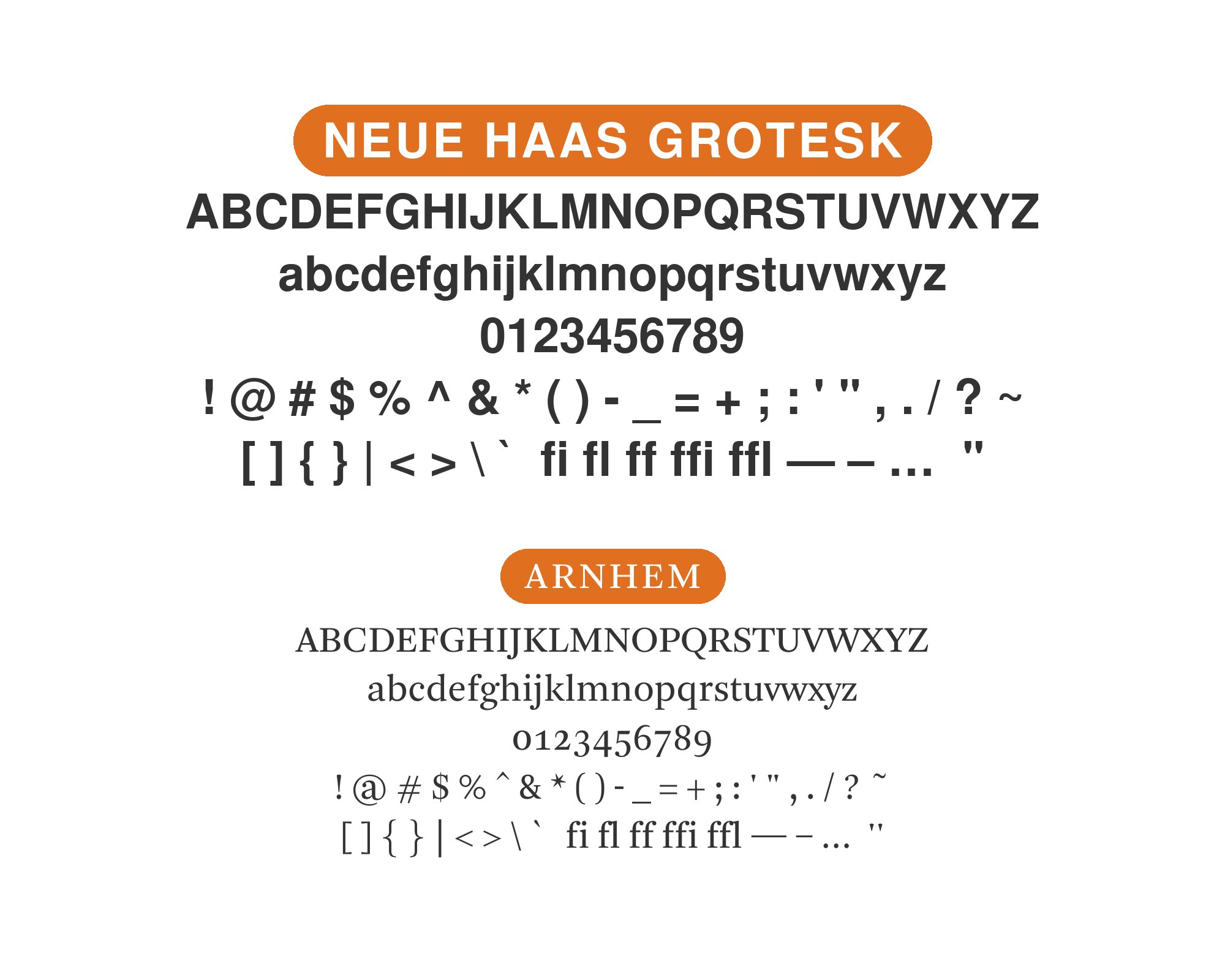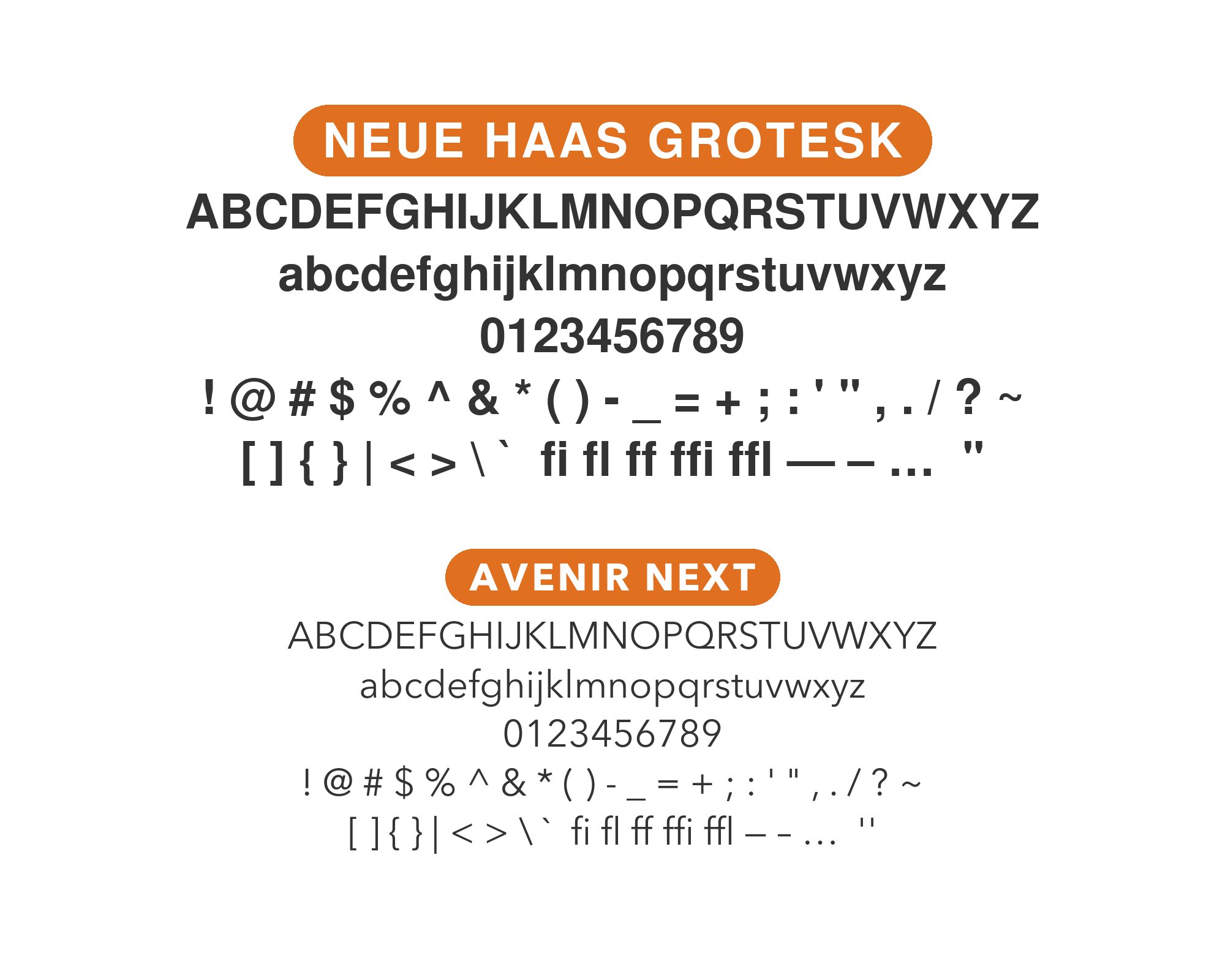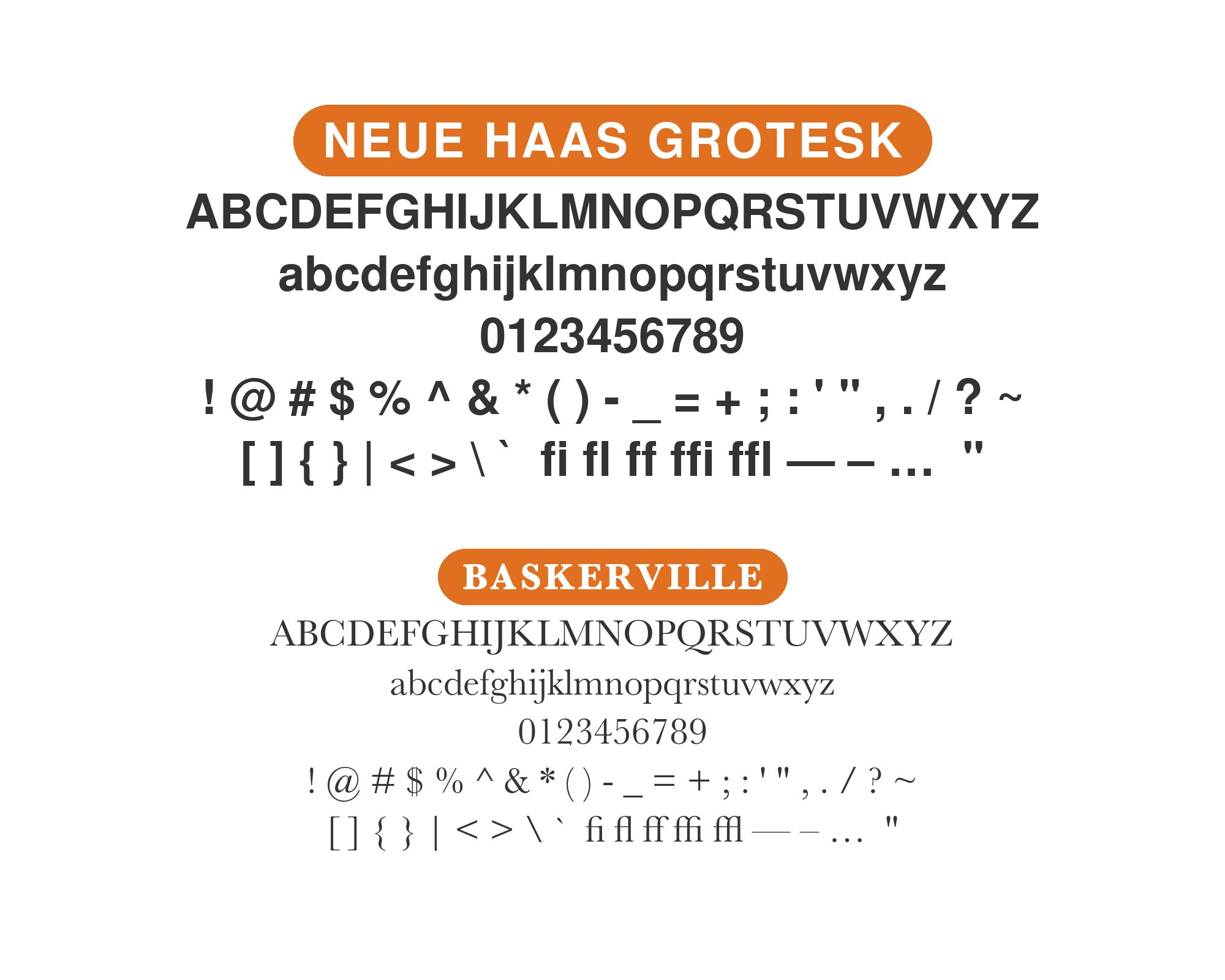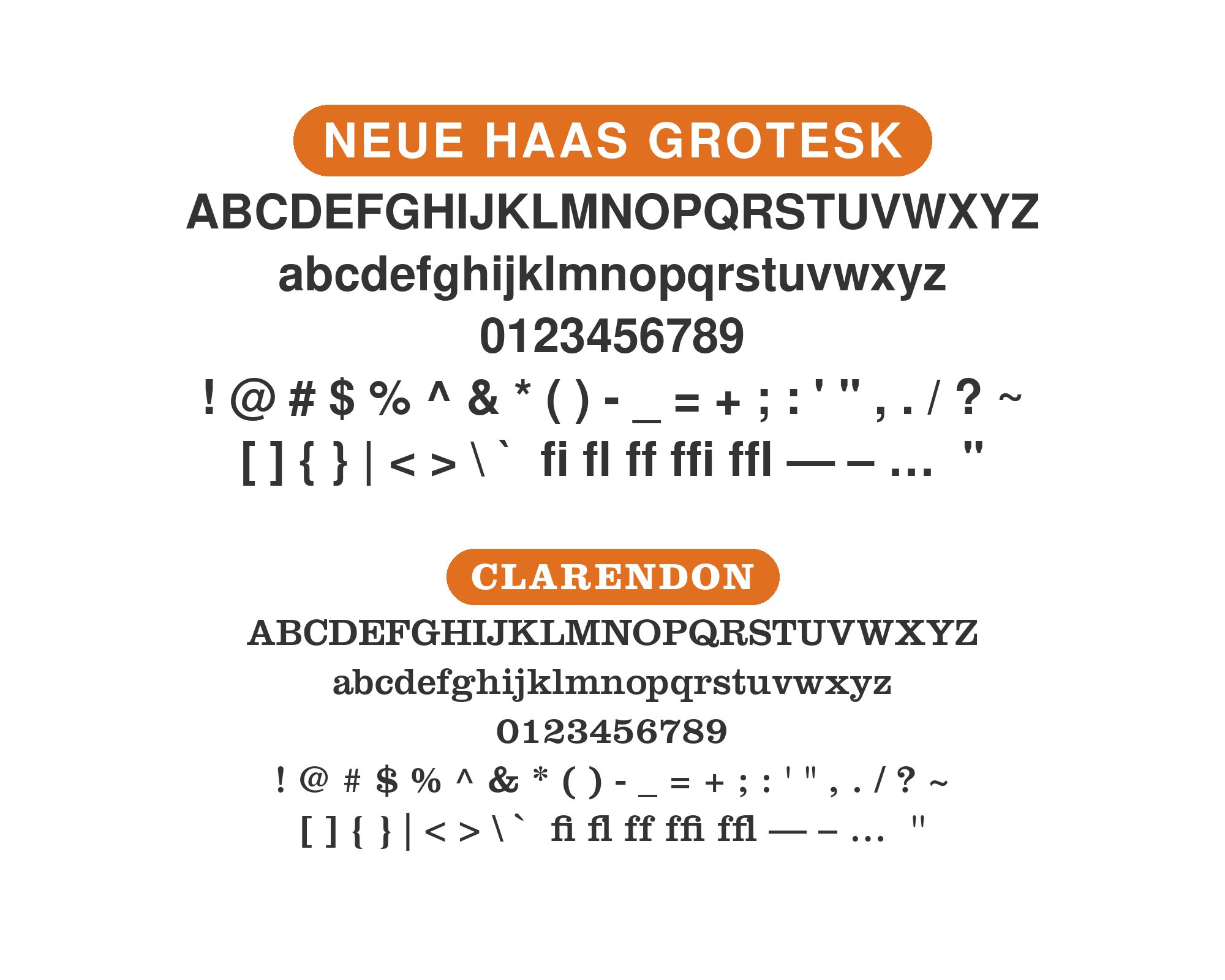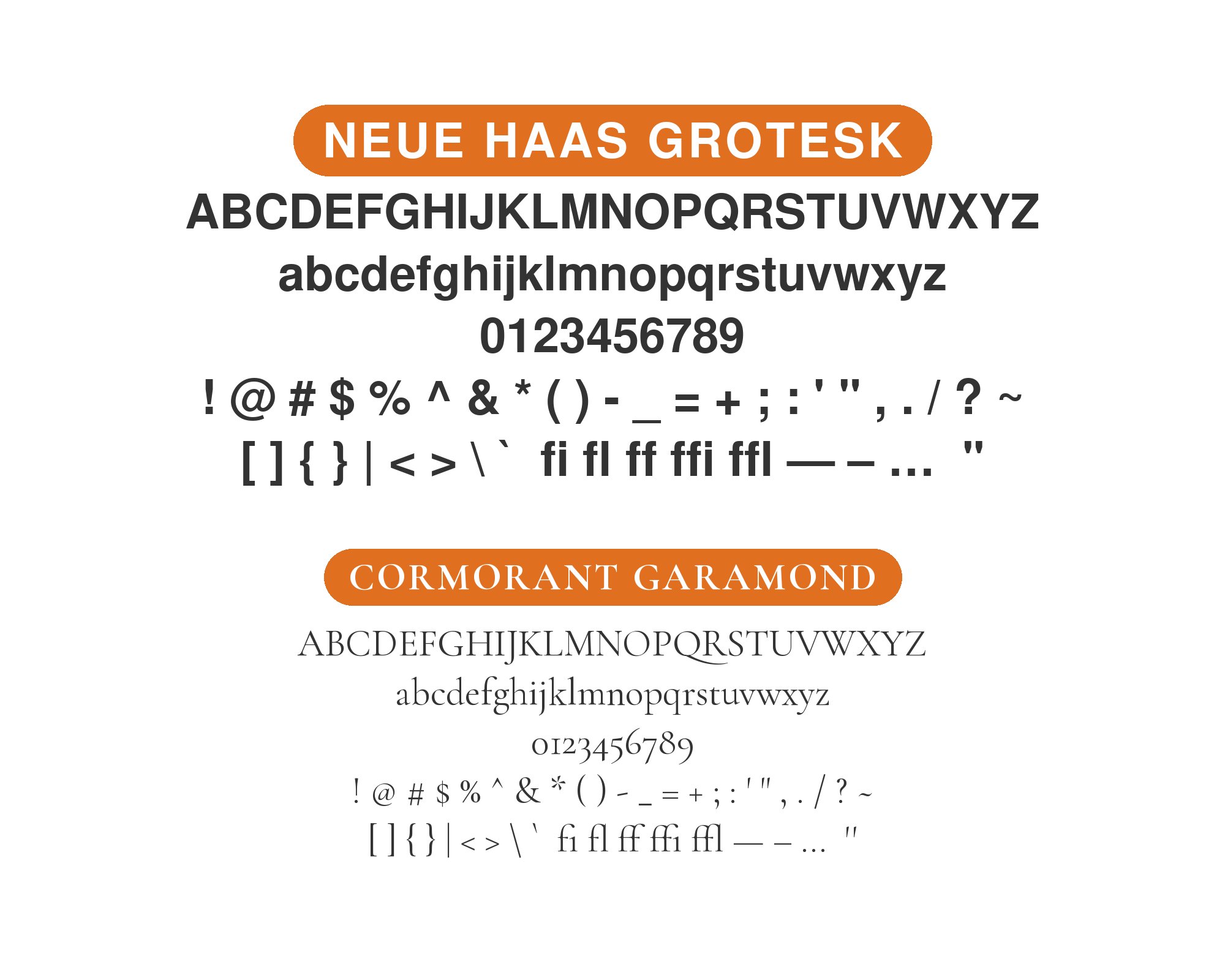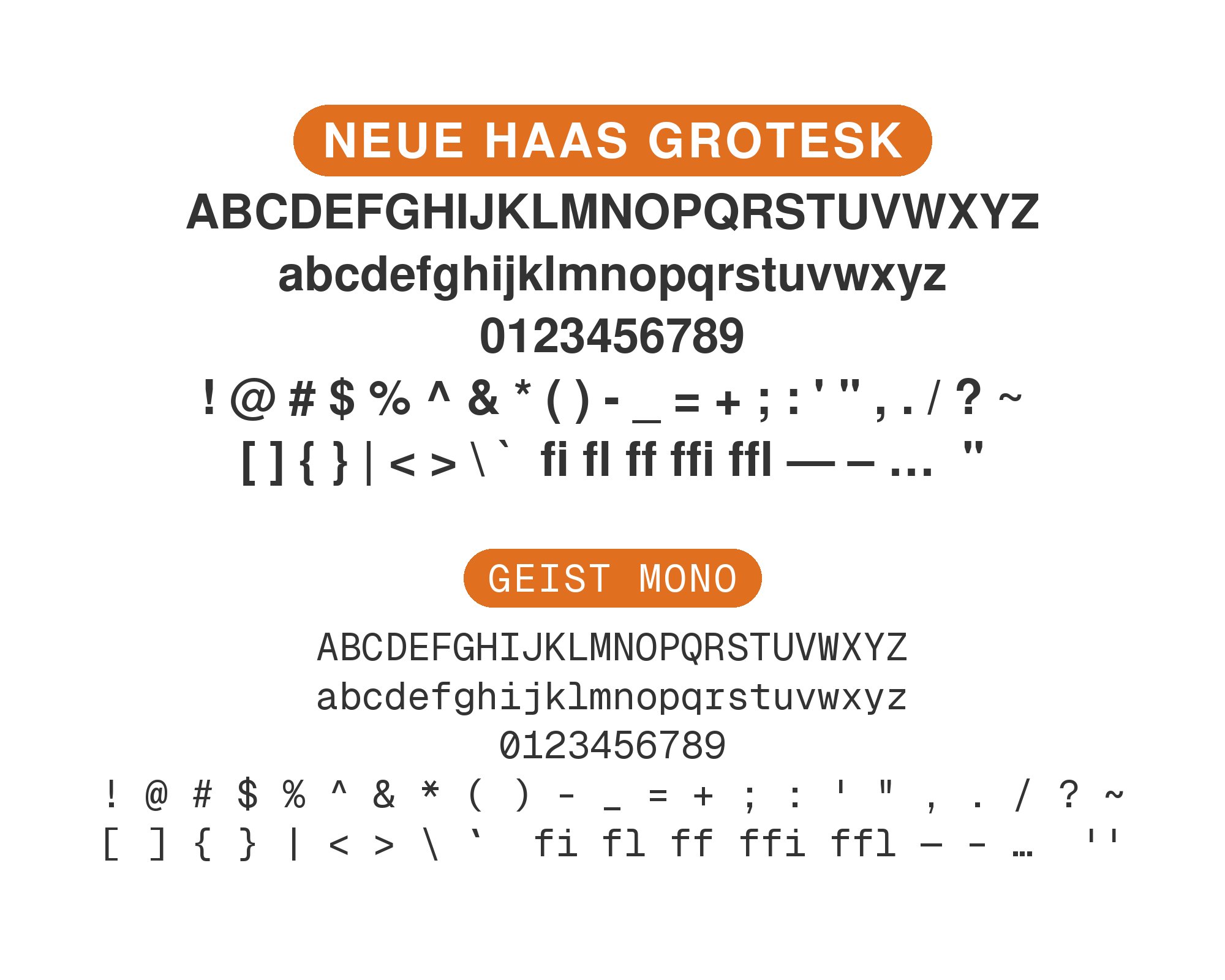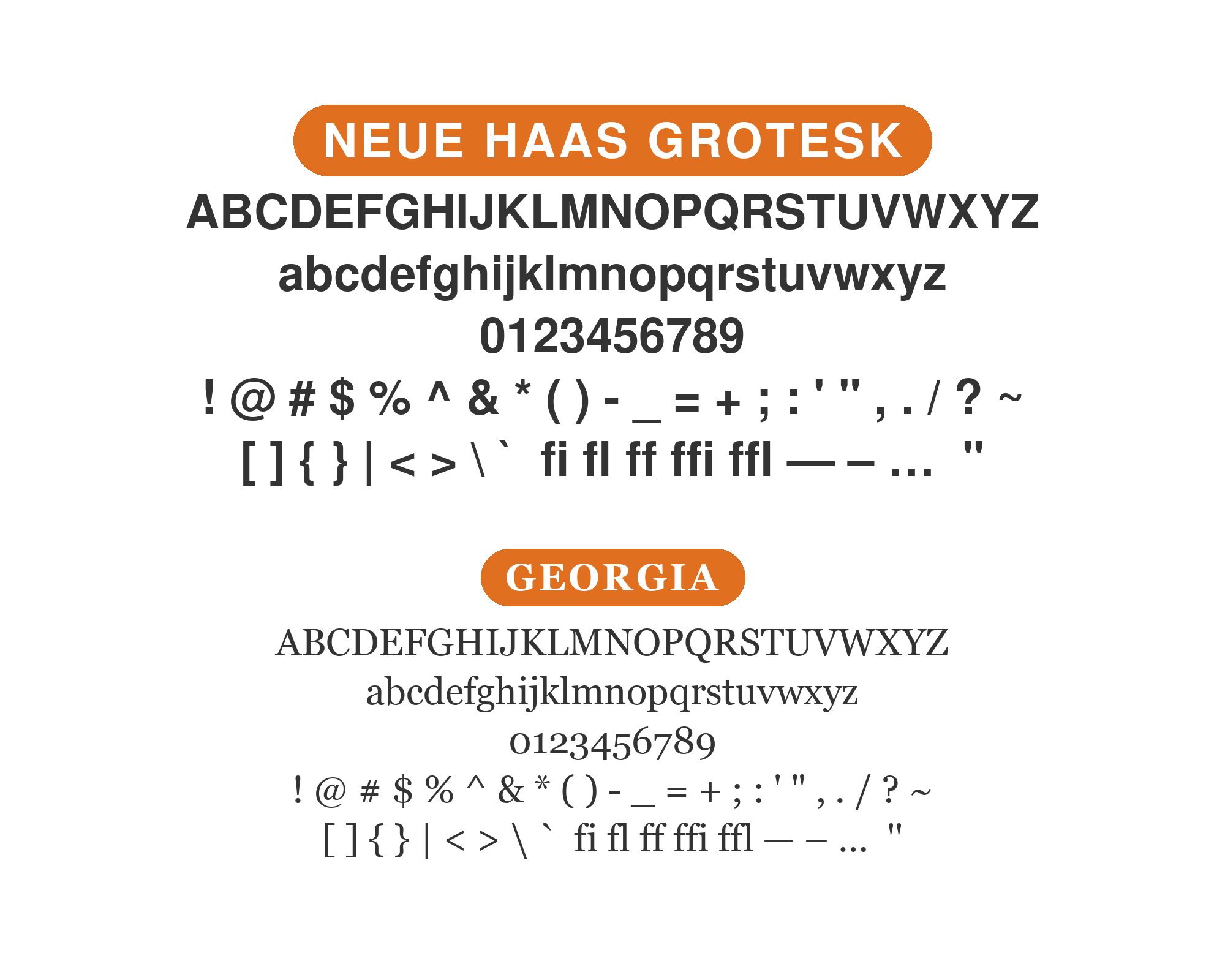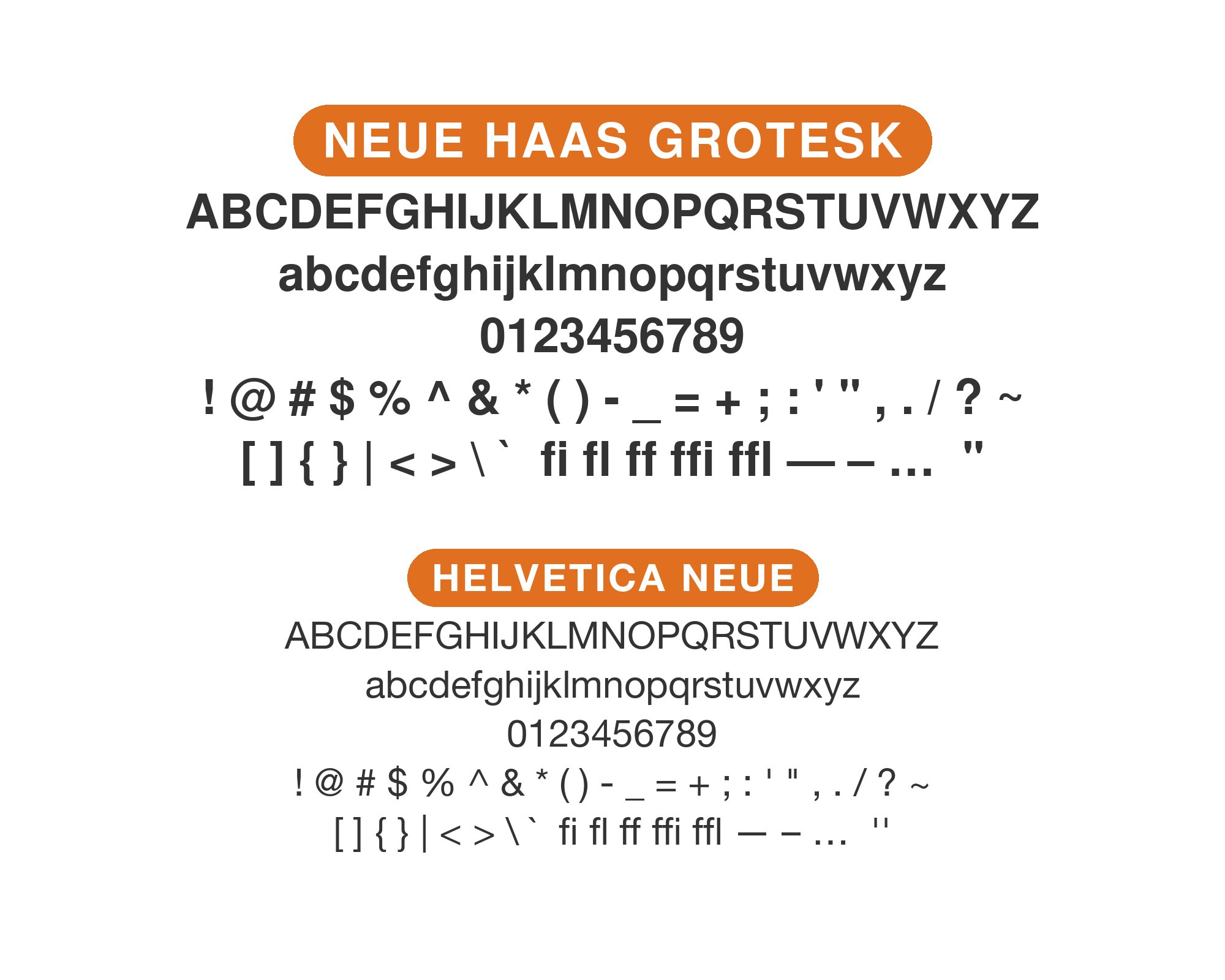
Neue Haas Grotesk pairs great with Arnhem, Kabel and ITC Garamond. All 15 pairings are shown below in real rendered specimens, with the reason each one works.
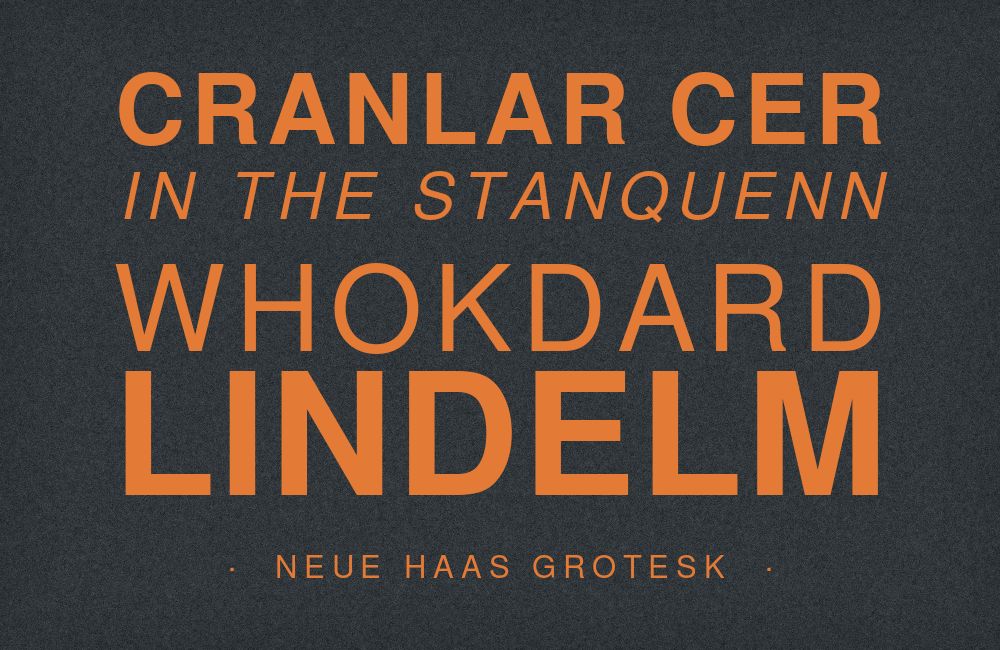
What fonts go with Neue Haas Grotesk? Before the pairing question comes the identity question, because this face is not another Helvetica — it is Helvetica restored, and its partners have to work against near-zero stroke contrast, closed apertures and spacing tight enough to lock words into single shapes.
Max Miedinger and Eduard Hoffmann drew the original Neue Haas Grotesk for the Haas Type Foundry in 1957; Christian Schwartz’s 2004–2010 revival — commissioned by Mark Porter at The Guardian and completed for Richard Turley at Bloomberg Businessweek — returned the design to its pre-Linotype form, recovering Miedinger’s original shapes and tight spacing, and issued it in Text and Display cuts. That recovery is the whole design argument: the stroke weight holds steady through every curve and joint, and the counters stay small and closed so a word reads as one block rather than as a row of letters. All of that means the face supplies structure and restraint while its partner must supply everything else.
The evidence here is unusually deep. Typewolf maintains one of its richest usage logs for this face — dozens of real sites — plus a curated suggestion; Typ.io records live co-usage from production sites; and Fonts In Use adds print-era and studio documentation. The pattern across all three: the Swiss original takes one of three partner types — a warm text serif for editorial contrast, a fellow engineered sans for system coherence, or a monospace for technical contexts. Here are 15 fonts that pair with Neue Haas Grotesk, all documented in use or named pairing guidance.
Set Arnhem at book sizes — 10 to 12 points with leading wide enough for its sturdy serifs — and let the Swiss face keep everything above 16 points. The Dutch serif’s warmth is the point of the pairing; do not neutralize it with tight tracking. Long-form editorial layouts are where Typewolf’s suggestion pays off.
Fred Smeijers drew Arnhem, first released with OurType in 1999, and it is Typewolf’s own suggested pairing for the restored Helvetica. The logic is editorial: Arnhem’s sturdy, wide-fitted text serif carries long-form reading in a warm register the Swiss face deliberately refuses, while Neue Haas Grotesk holds headlines and structure. Arnhem’s wide fitting and generous x-height hold a text column at sizes where the grotesque’s tight spacing turns dense, which is why Typewolf names it rather than a narrower book face.
2. Kabel
Kabel works in the cultural layer: gallery names, exhibition titles, section openers. Its expressionist quirks read as intentional only at display sizes, and next to Schwartz’s even machine rhythm they read as very intentional indeed. Keep the Swiss face for structure and never let the two share a baseline.
Rudolf Koch’s 1927 Kabel appears with Neue Haas Grotesk on a real site logged by Typewolf in December 2025. The two split on philosophy: Kabel’s expressionist, hand-drawn geometry against the restored grotesque’s machine evenness. The pairing works as a German-against-Swiss argument — the drawn line versus the engineered line — and suits cultural and gallery contexts where a humanist geometric voice keeps the layout from feeling corporate. Kabel’s tiny eye in the lowercase e and its sharply angled terminals give a headline the irregularity the 1957 design has none of.
3. ITC Garamond
ITC Garamond’s huge x-height lets it hold headline duty beside the Swiss face, which changes the pairing’s balance: two display-capable voices need strict zoning. Give the Garamond features and pull quotes, the grotesque everything functional. The Sydopia site shows the arrangement working in production.
Tony Stan’s oversized 1975 ITC Garamond revival appears with Neue Haas Grotesk on the Sydopia site (Typewolf, May 2022). This is not a quiet Garamond — huge x-height, short ascenders, 1970s confidence — which lets the serif hold its own at headline scale beside the restoration. Because both faces can then carry weight above 30 points, the zoning has to be explicit: serif for voice, grotesque for wayfinding. The pairing suits brand-editorial layouts where the serif must compete for attention, not just carry text.
4. Roboto
Roboto’s open forms and broad family make it the system voice: interface labels at 12 to 14 points, body at 15 to 16, with Neue Haas Grotesk reserved for brand moments above. The live-site co-usage supports exactly this division. Keep Roboto’s condensed cuts out unless space demands them.
Christian Robertson’s Android system face Roboto is recorded in live-site co-usage by Typ.io. Both faces are neo-grotesques engineered for screens, so the pairing is register-coherence rather than contrast: Roboto’s open, slightly warmer forms take interface and body duty while the Swiss original owns the brand moments. Roboto’s wider apertures are what hold the two apart at 13 points, where the restoration’s closed forms begin to fill in on a low-resolution screen. Set both at the same optical size and the difference reads as intent rather than accident.
The Helvetica Neue pairing sits apart as the one comparison pairing — two eras of the same design, used to make the restoration’s recovery visible. What every real deployment avoids is a second high-personality display face: the tight spacing and locked-down neutrality leave no room for competition. Give it a calm, warm, or engineered partner, set the tracking to its design intent, and the restoration reads as Schwartz drew it.